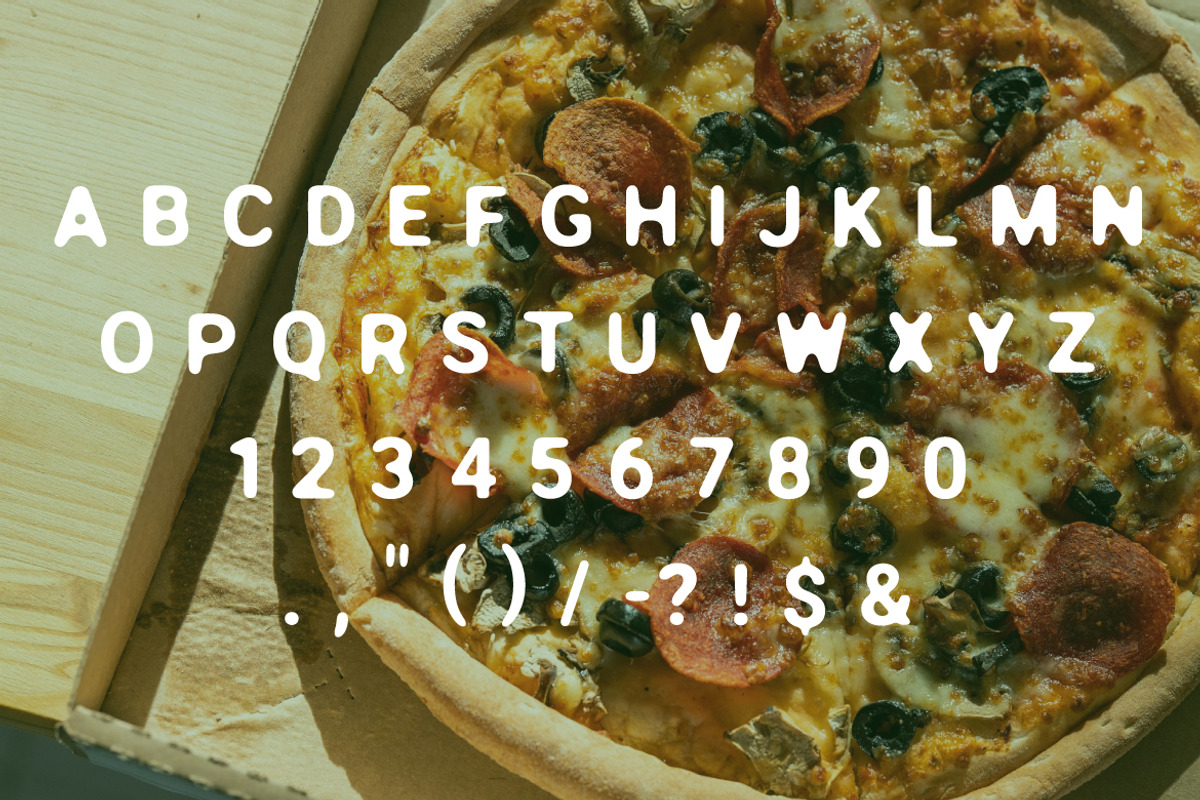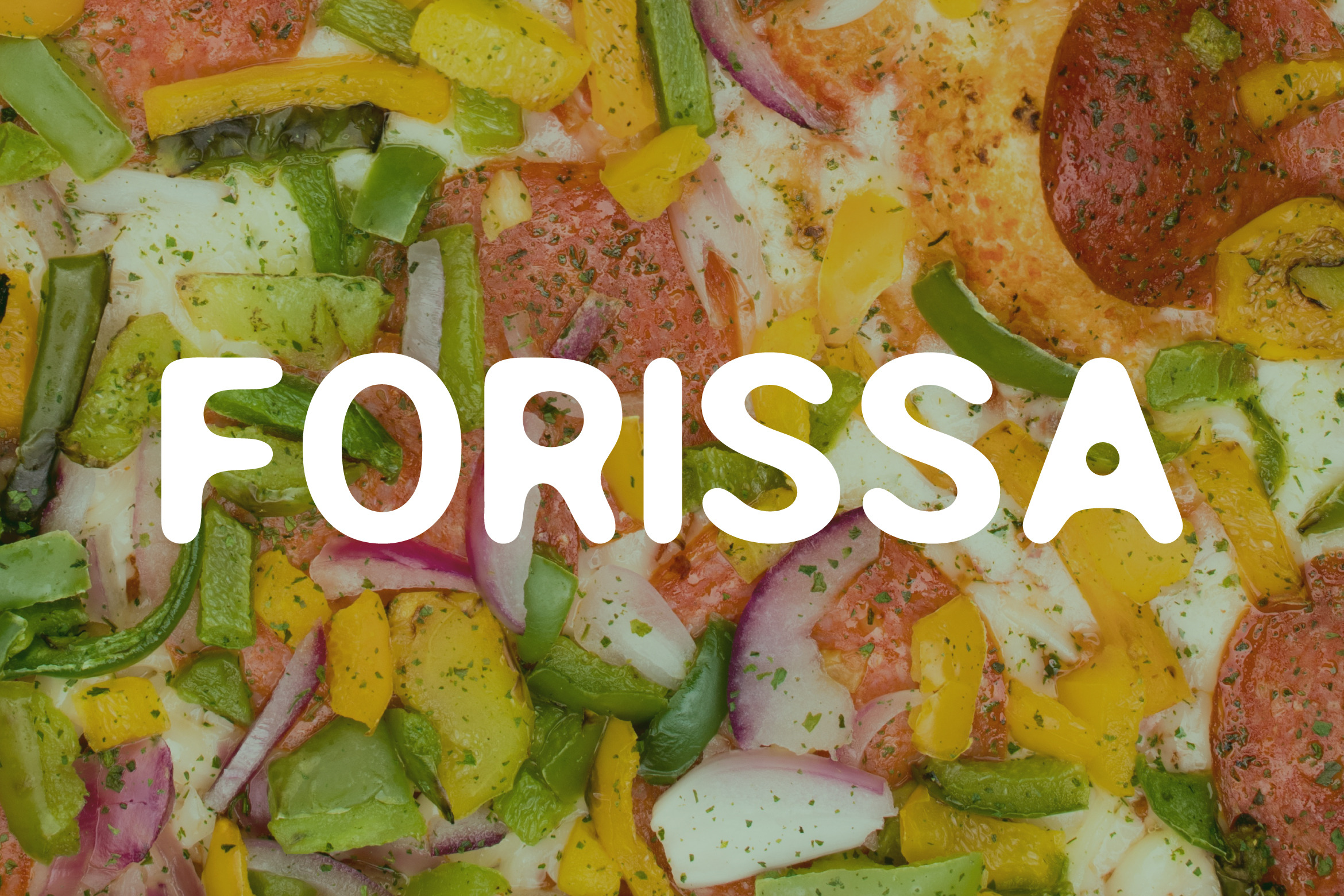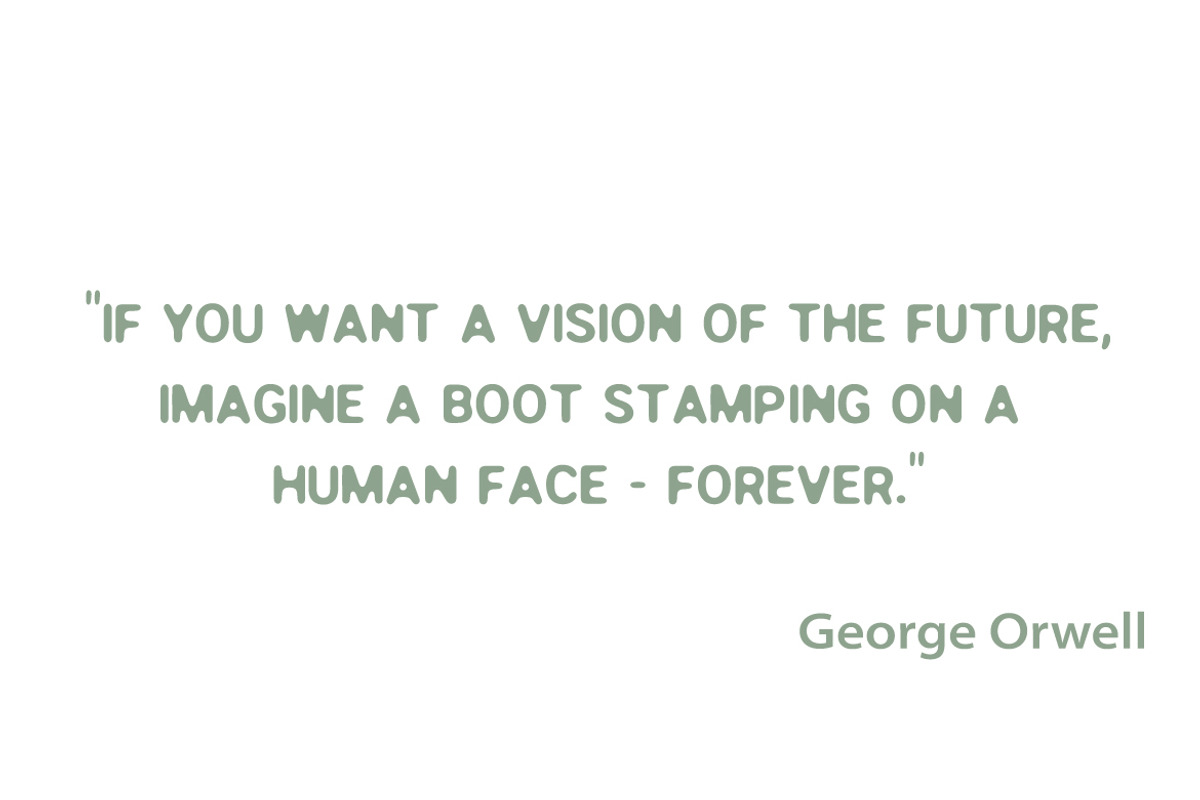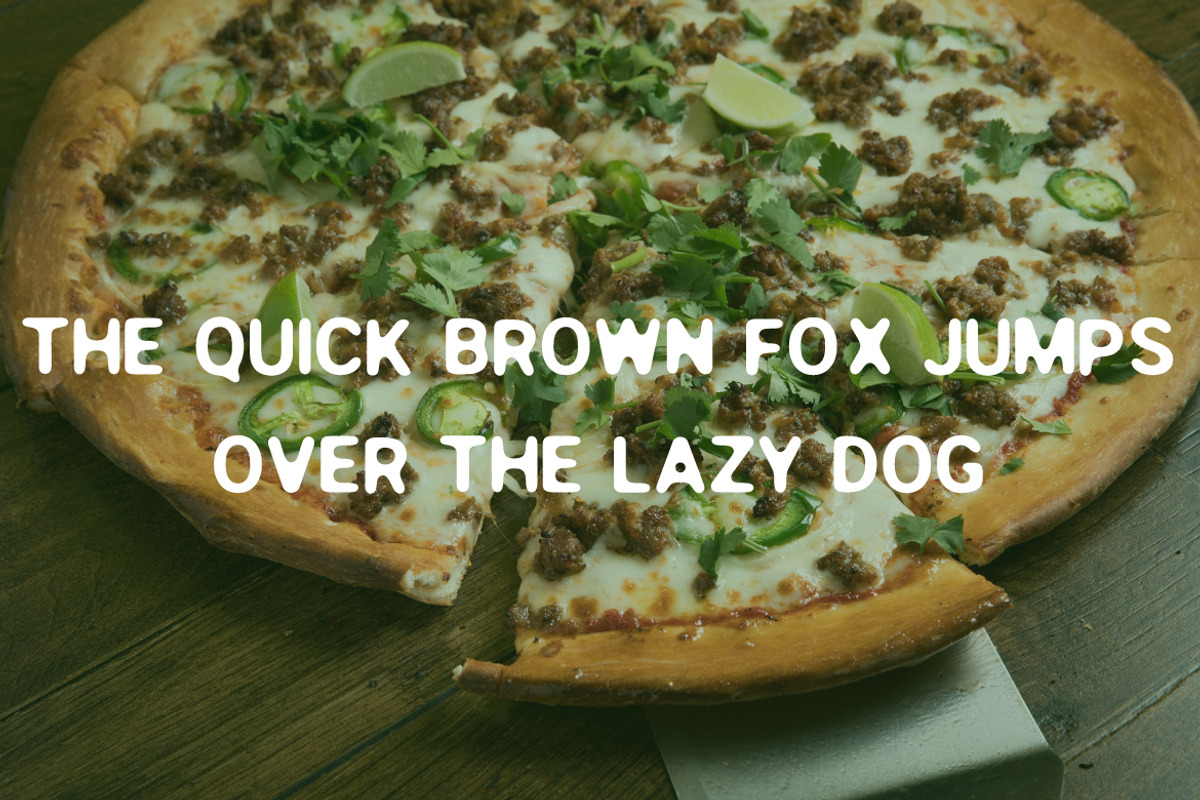
Forissa - Playful Bold Font
Forissa is a friendly and rounded display font with a soft, playful personality. Its smooth shapes and warm appearance make it perfect for food branding, packaging, kids’ designs, posters, quotes, social media graphics, and cheerful visual projects. Forissa brings a fun, approachable, and modern feel that instantly connects with the audience.